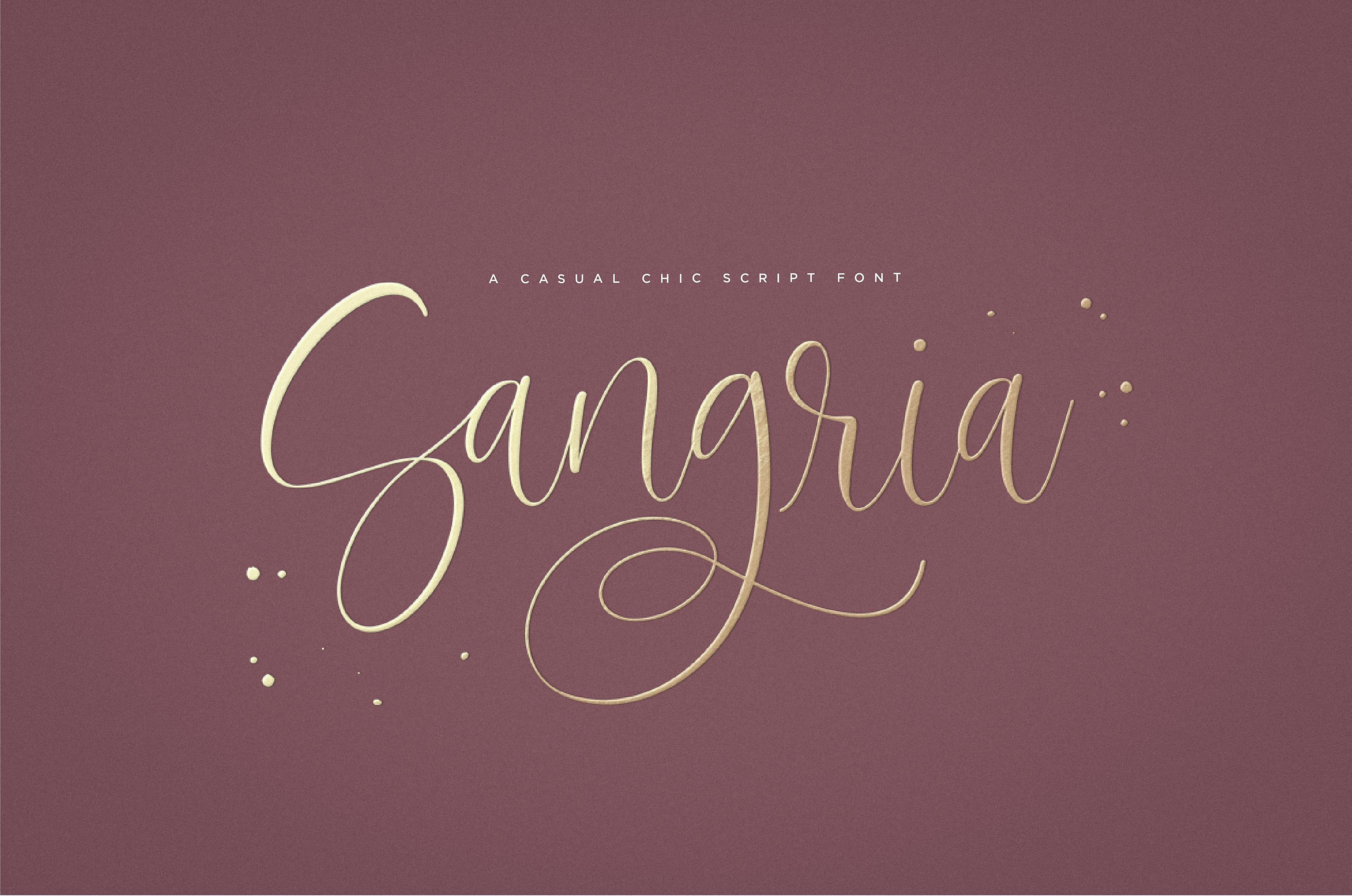
Sangria Script Font
Introducing the lovely new Sangria Script Font!
Sangria was built with OpenType features and includes beginning and ending swashes, numbers, punctuation, alternates, ligatures and it also supports other languages :)
- Multilingual capabilities are available for this font. Characters include: ÁÂÄÀÅÃÆCÐÉÊËÈÍÎÏÌ ŁÑÓÔÖÒØÕŒÞŠÚÛÜÙẂŴẄẀÝŶŸỲŽáâäàåãæçdððéêëèíîïìłñóôöòøõœþšßúûüùẃŵẅẁýŷÿỳž